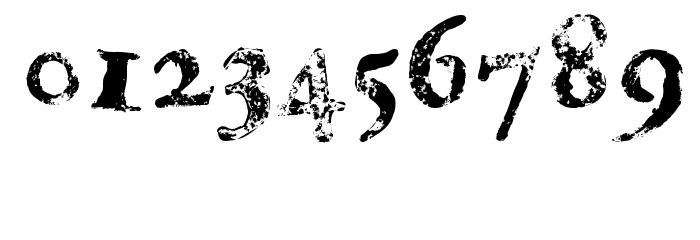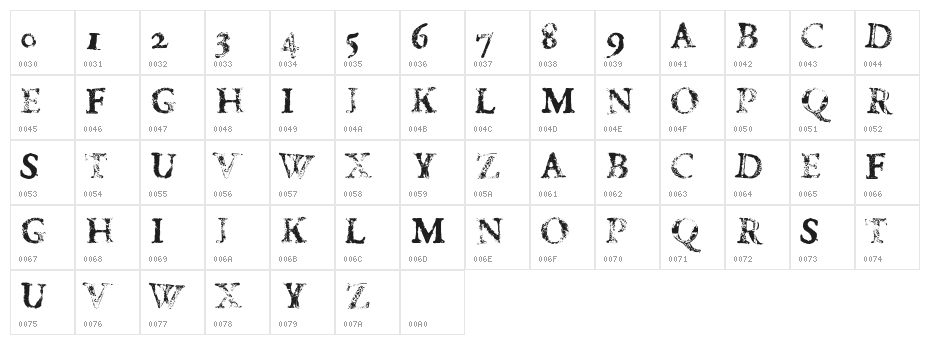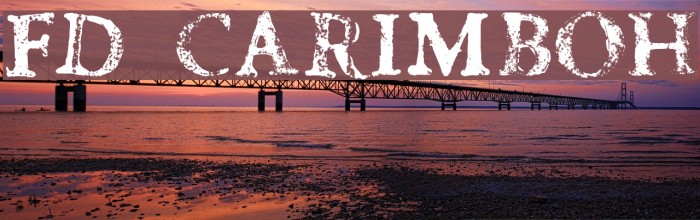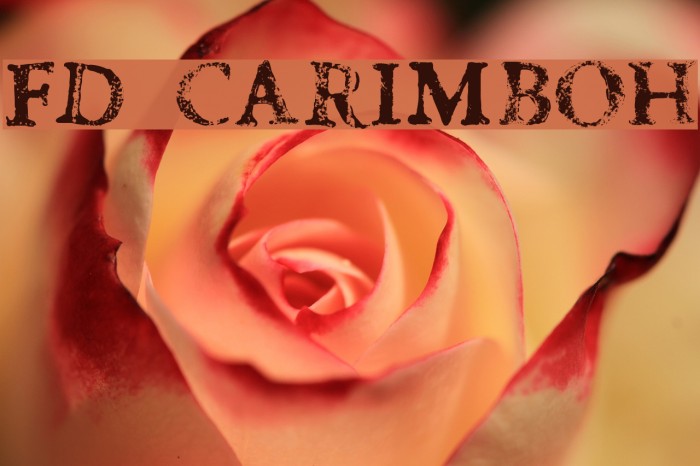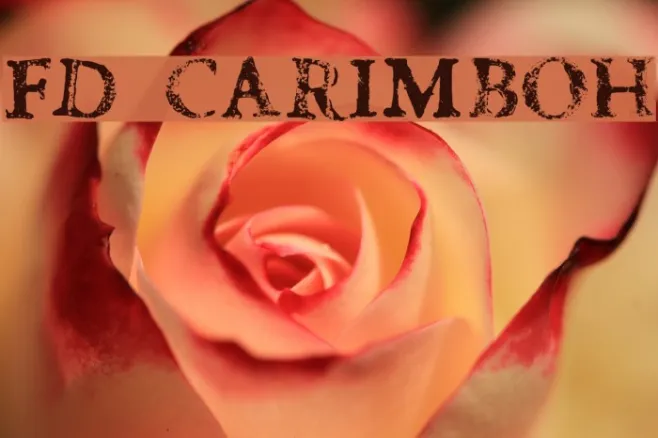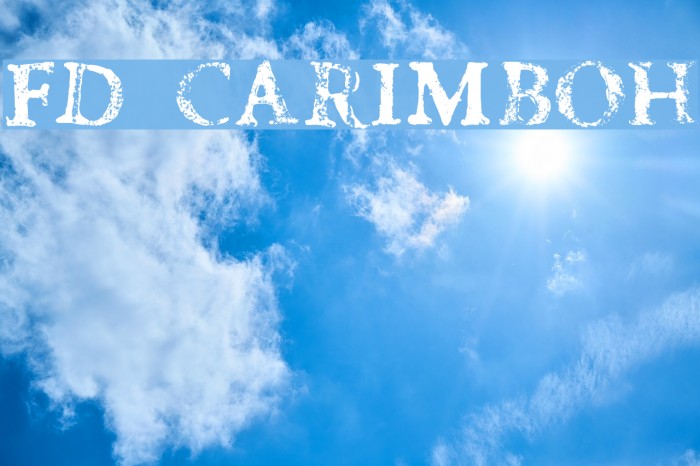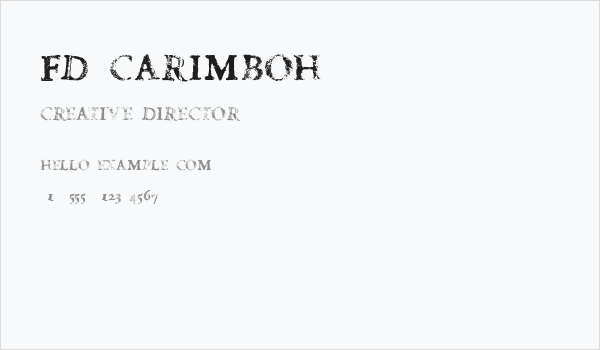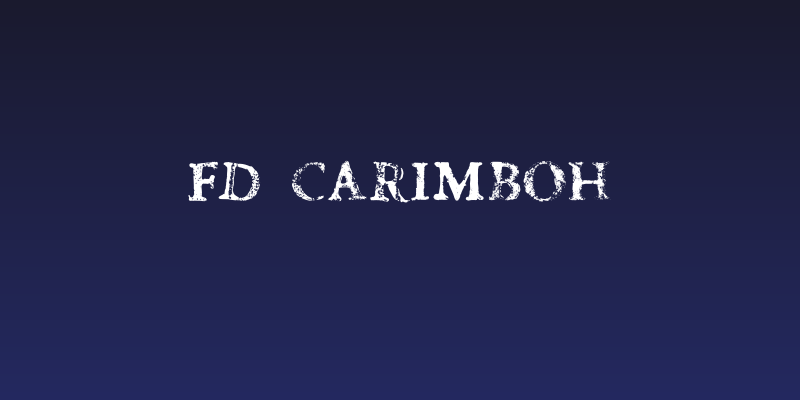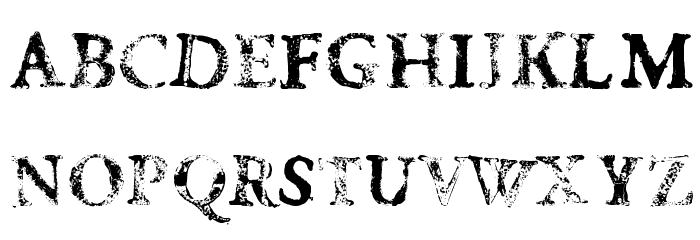
fd carimboh Font
fd carimboh Description
This font features a distressed, grunge aesthetic that mimics the appearance of a worn-out rubber stamp. The characters are bold and have a rough texture, giving them a rugged and vintage feel. The uppercase and lowercase letters maintain a consistent style, with irregular edges and a slightly faded look that adds to the authenticity of the design. The numerals and special characters follow the same distressed pattern, ensuring a cohesive appearance across all elements. This font is ideal for projects that require a touch of nostalgia or a handcrafted look.
| Proposed Projects | Ideal for vintage-themed posters, album covers, branding for artisanal products, or any design requiring a rustic, handcrafted feel. |